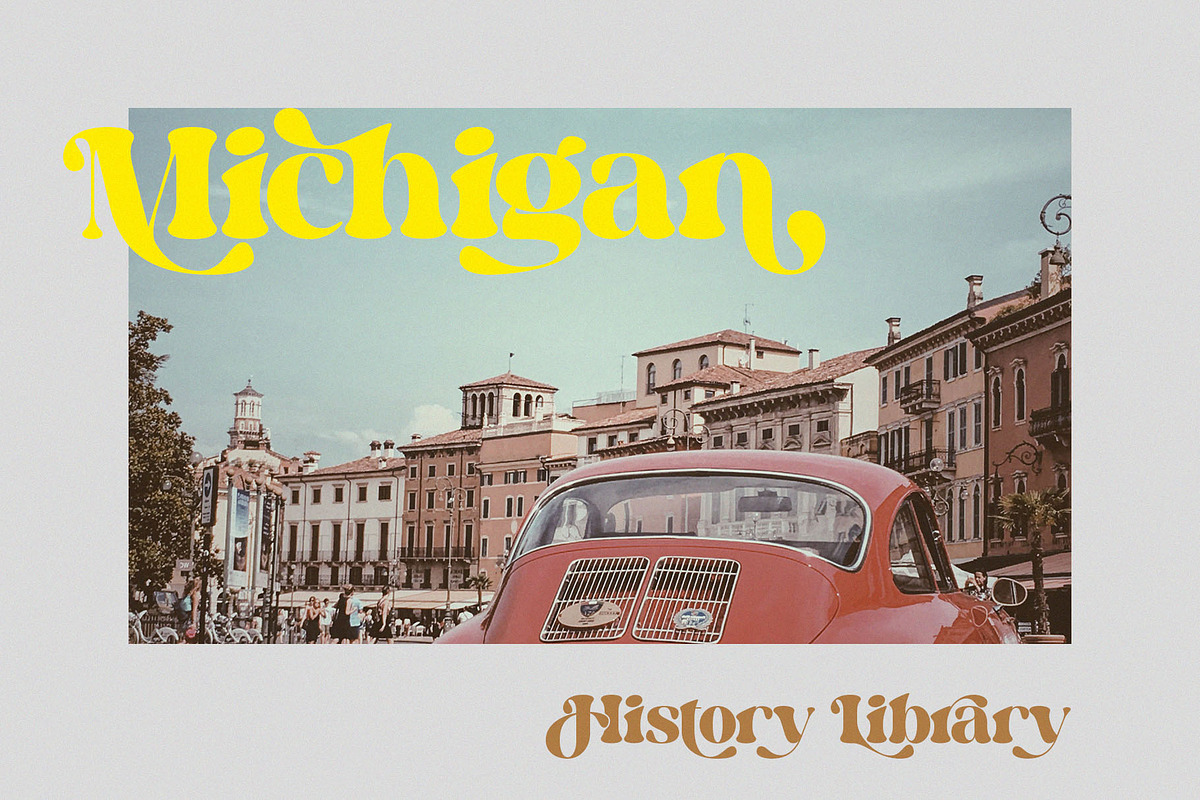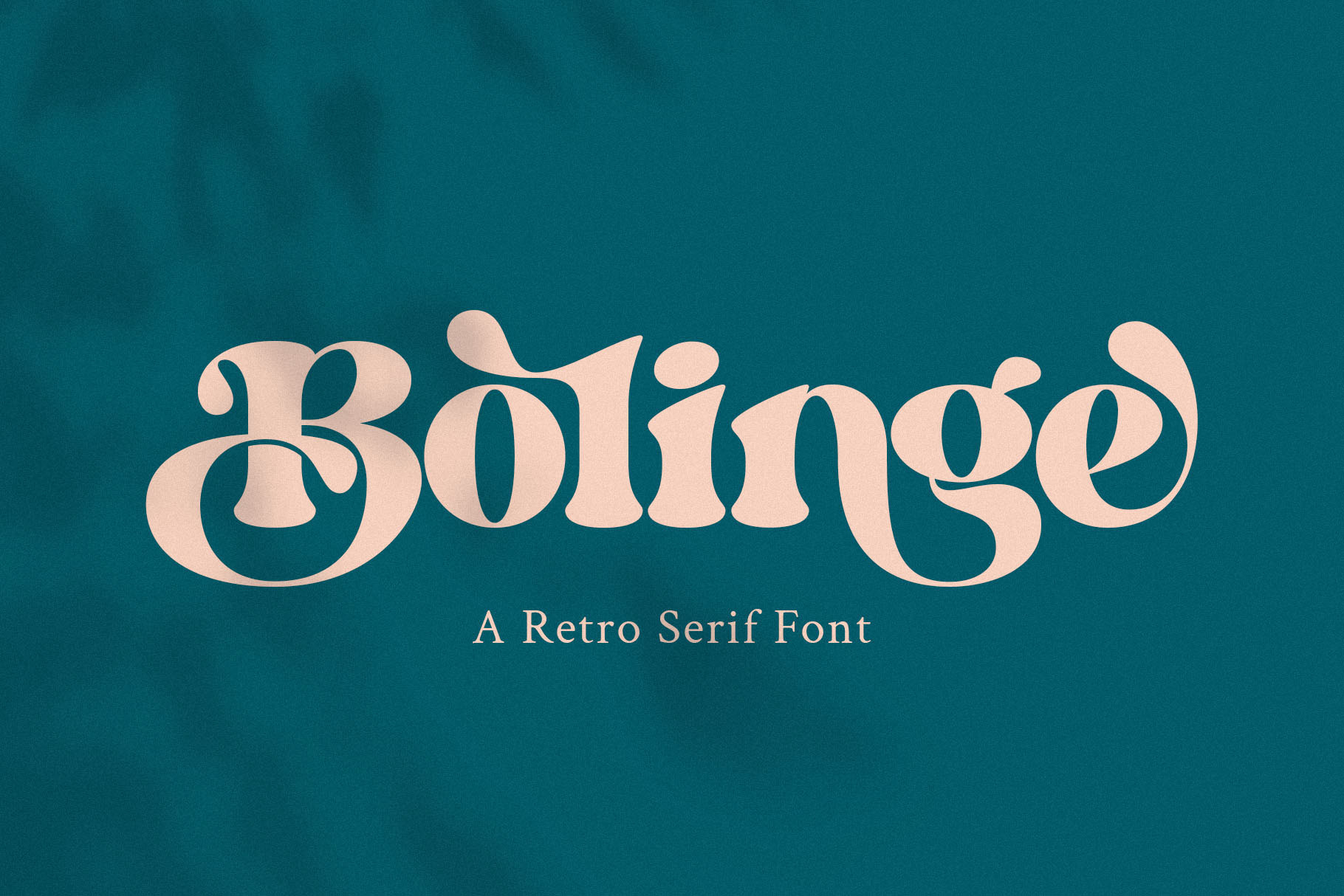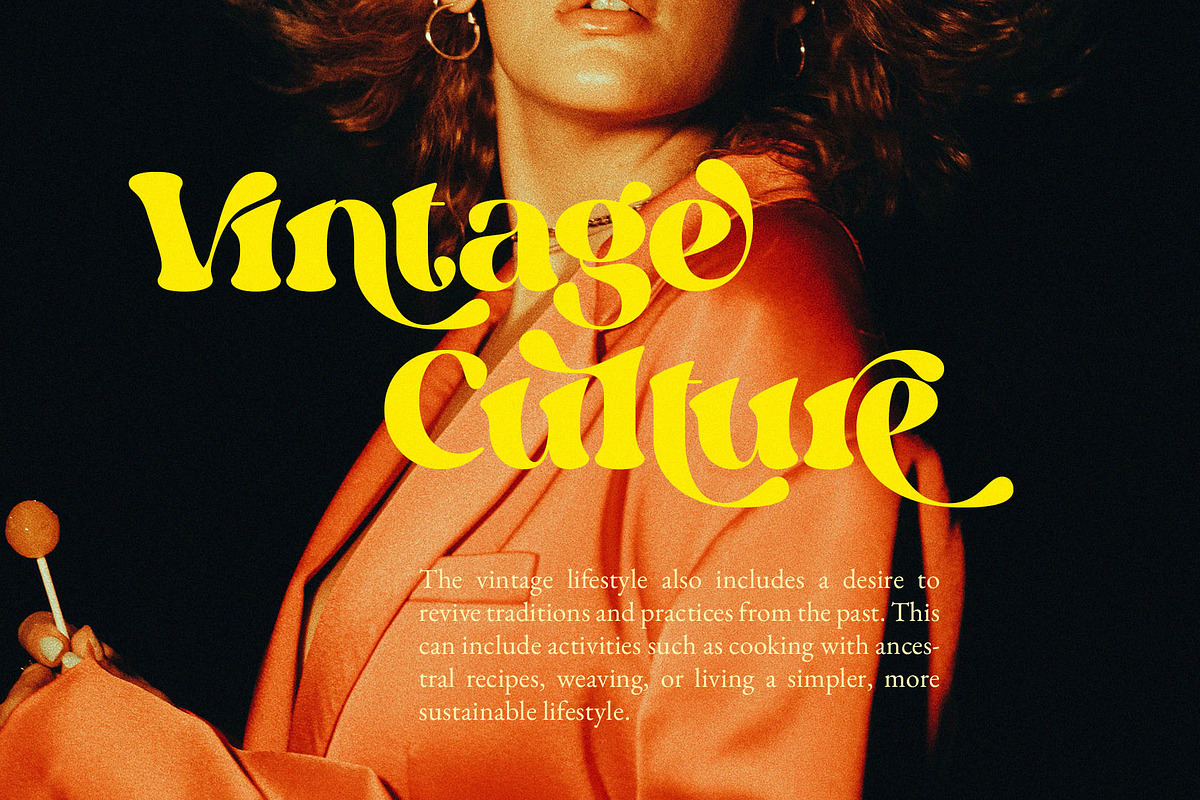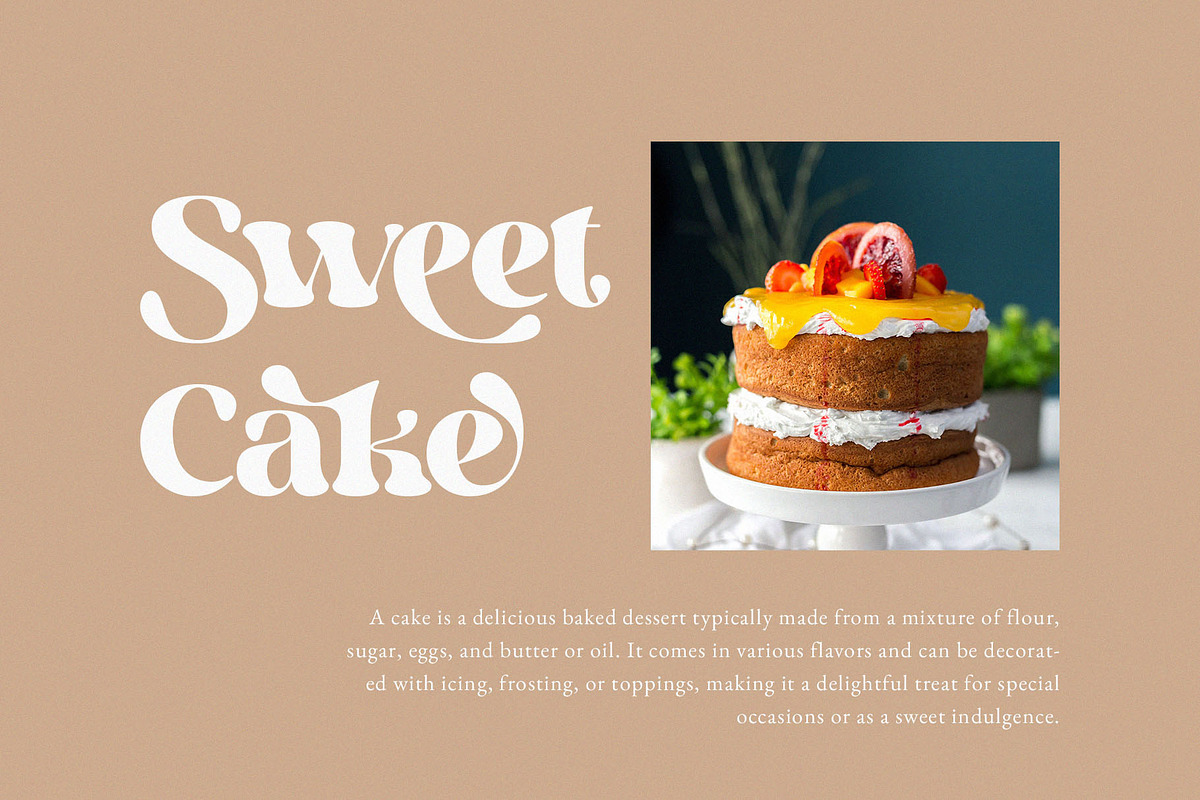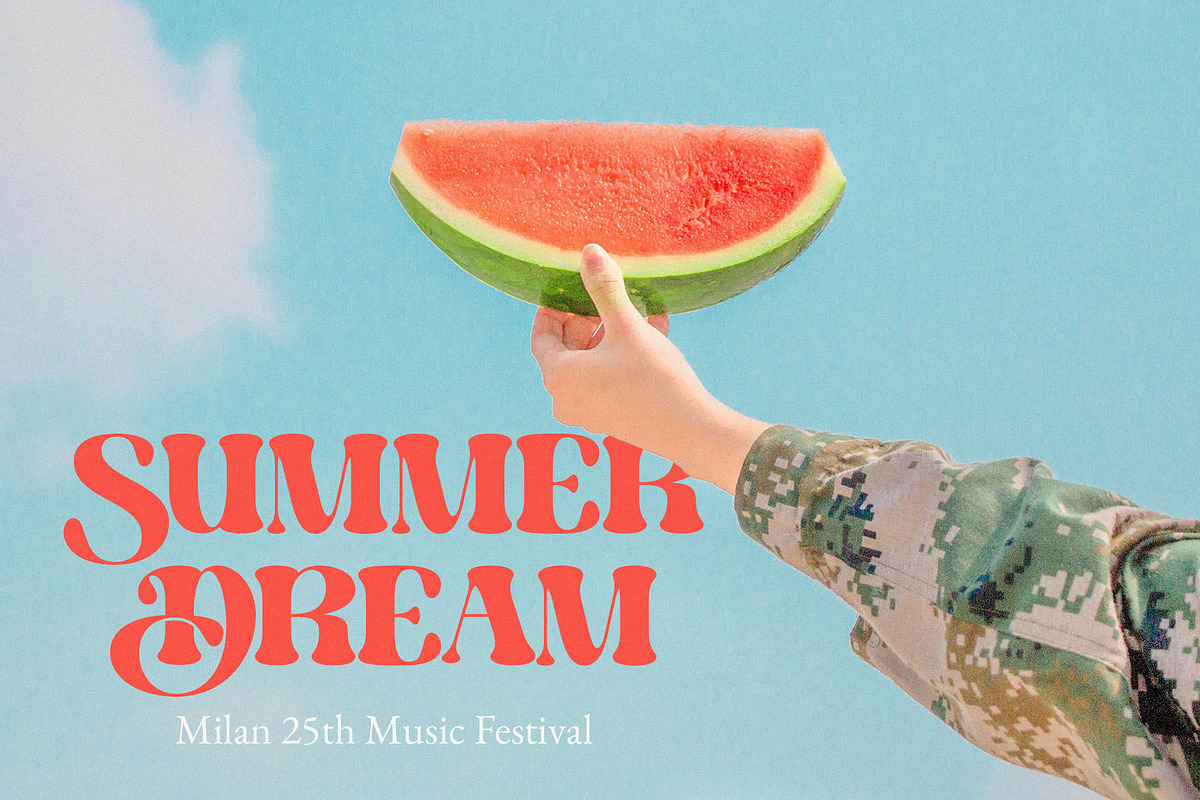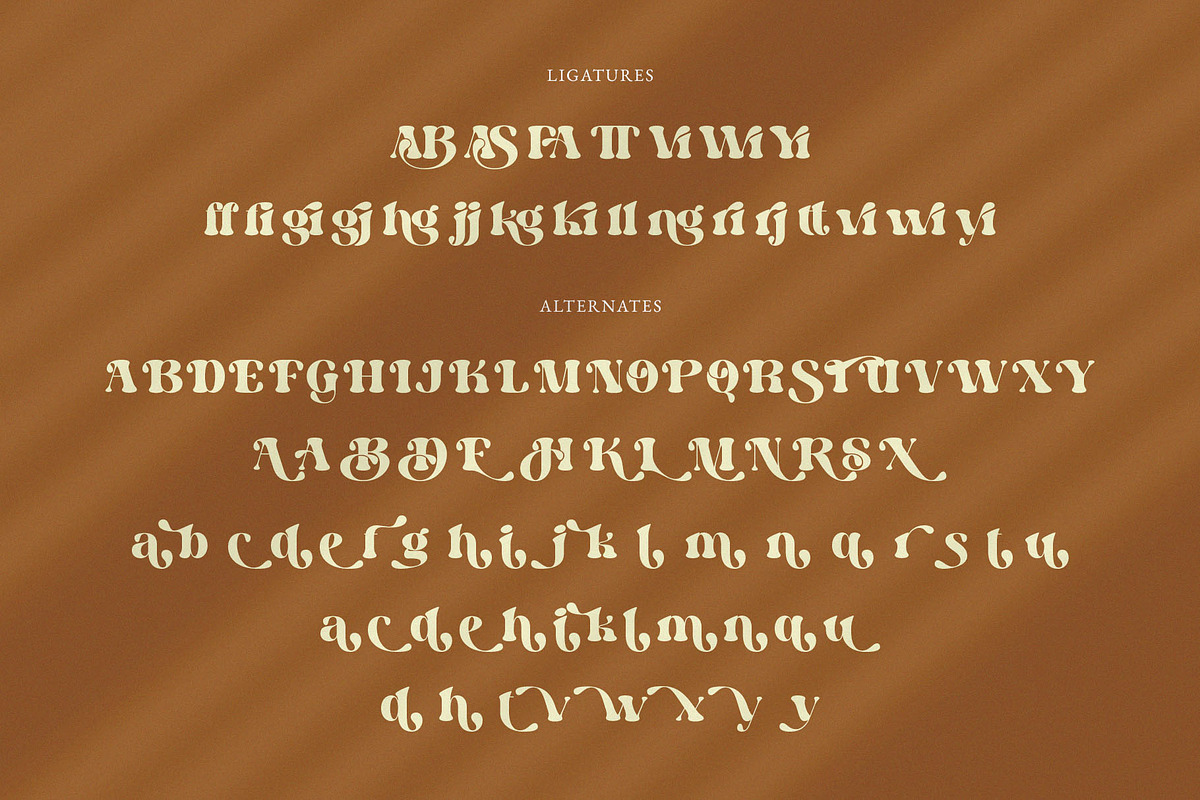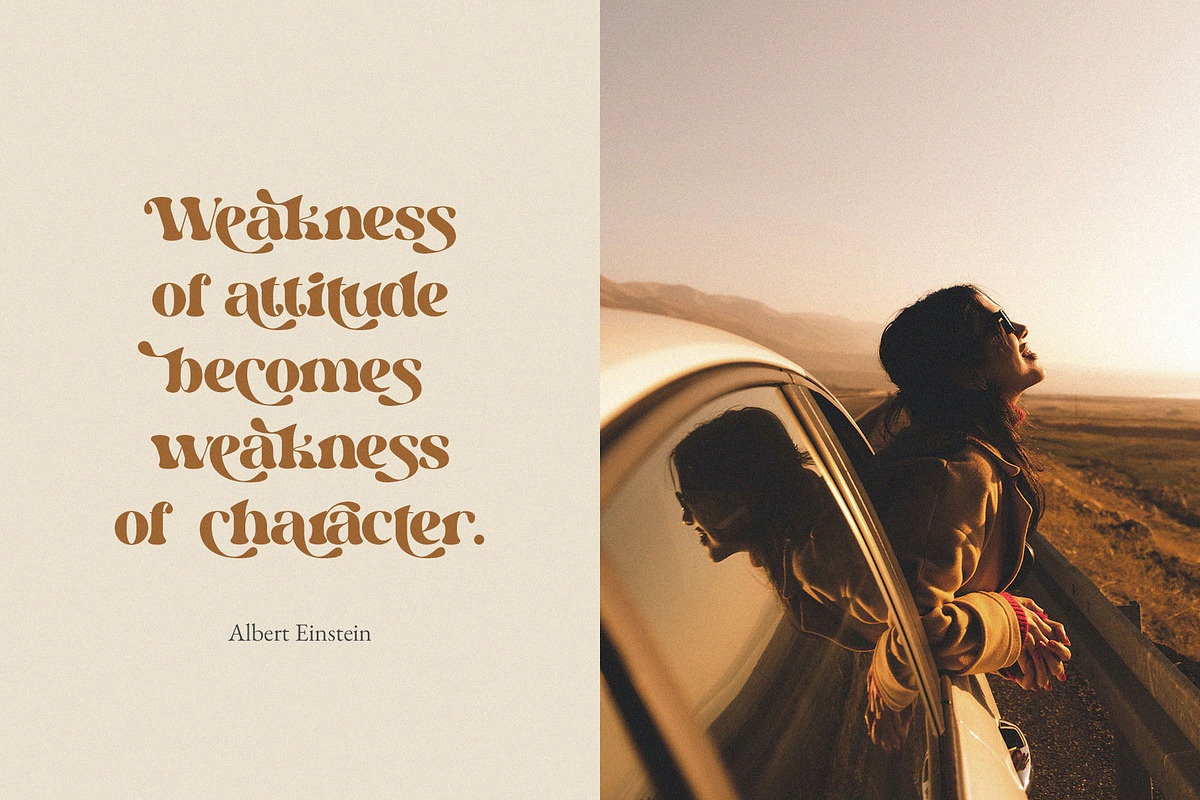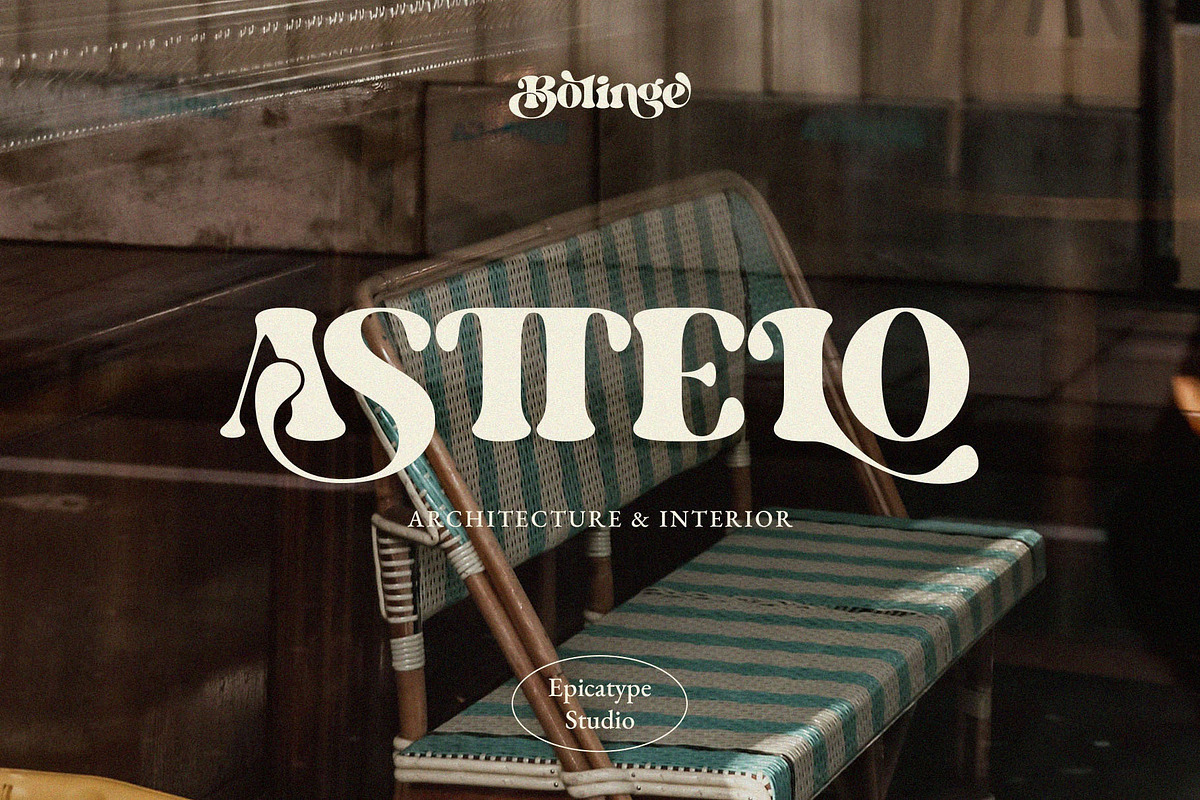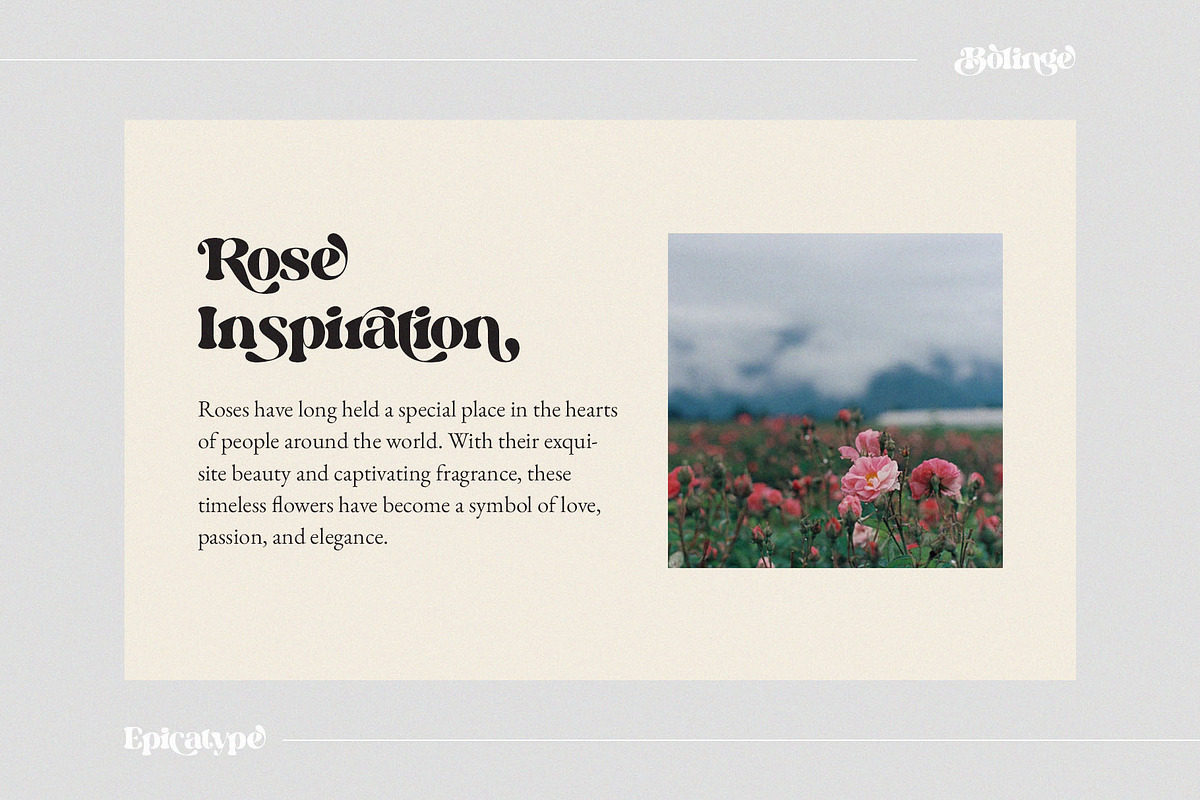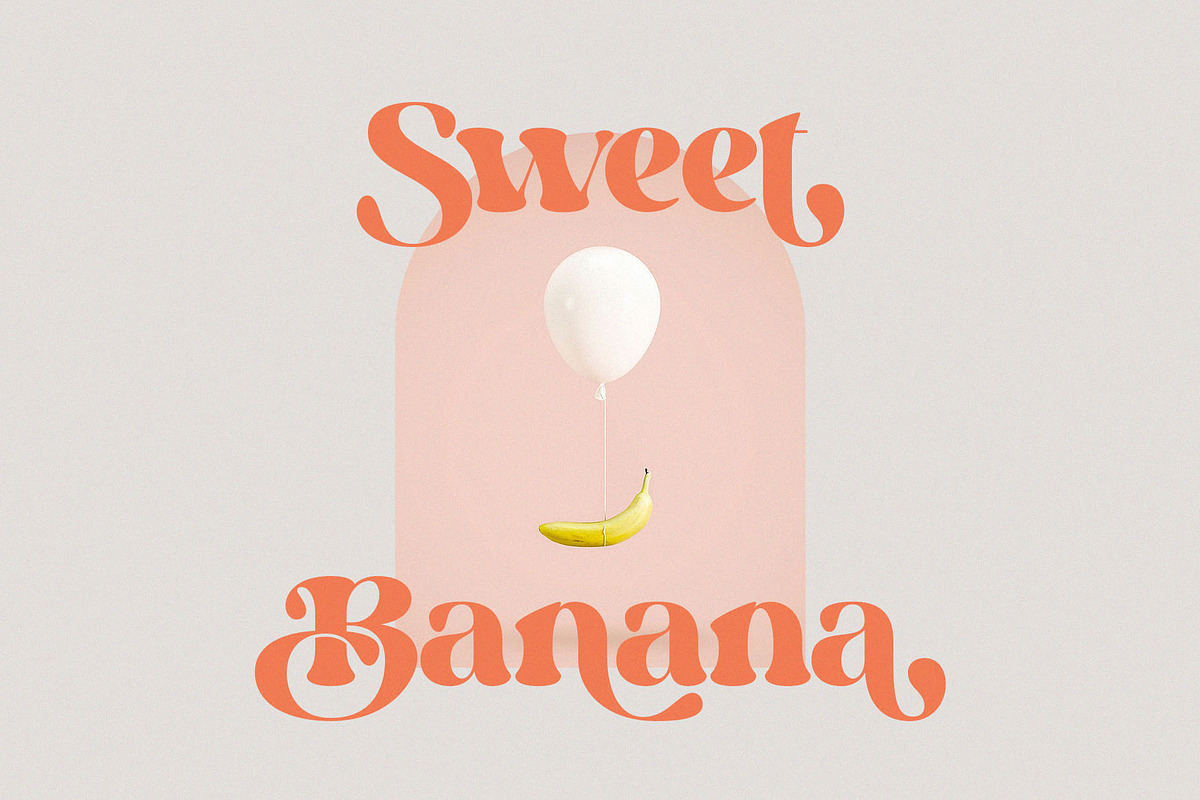
Bolinge // Retro Serif Font
Hello, new retro serif called Bolinge!!! Bolinge is a stylish font that is both retro and bold font. Works great for logos, magazine, social media. It come with a unique lower and uppercase plus numbers, punctuation & multilingual letters, alternates and ligatures.